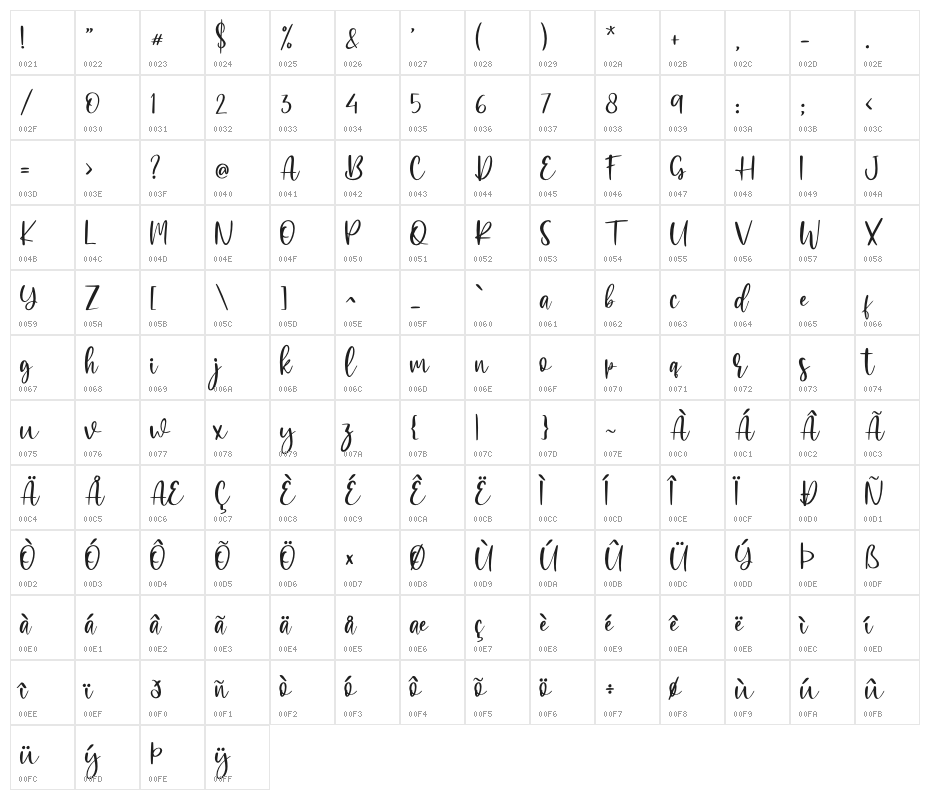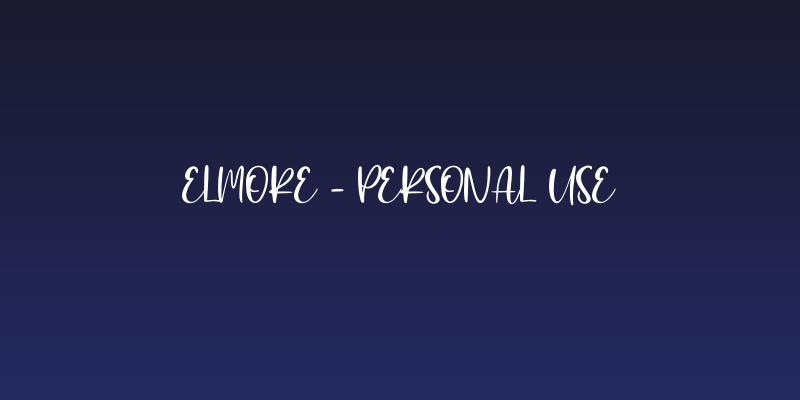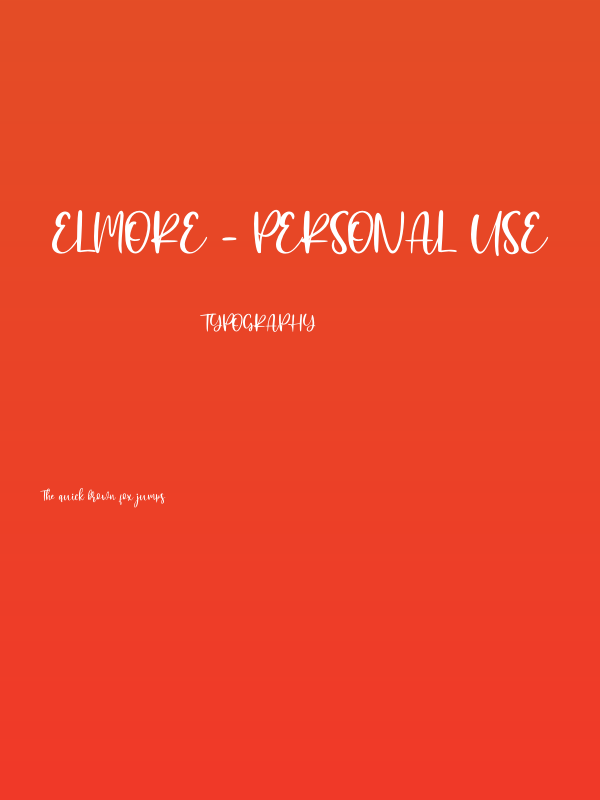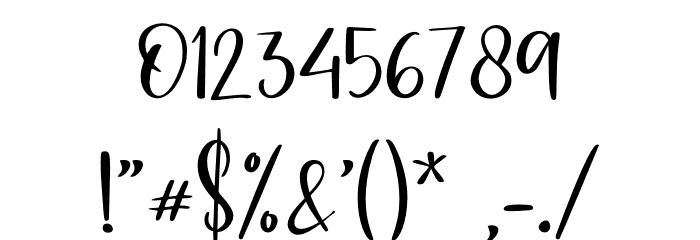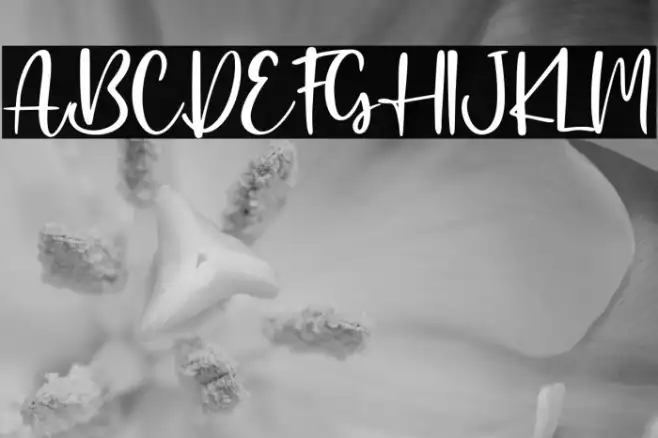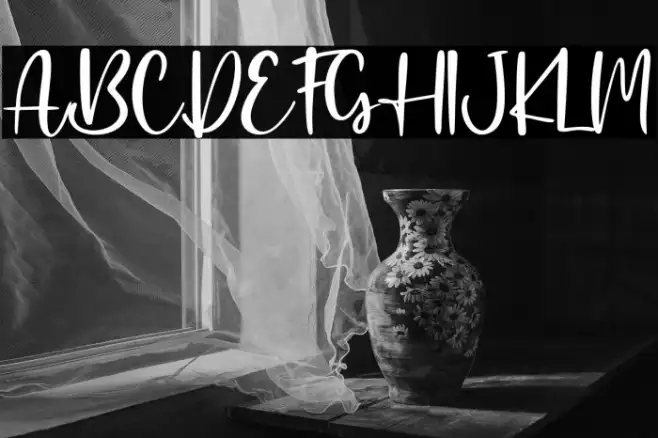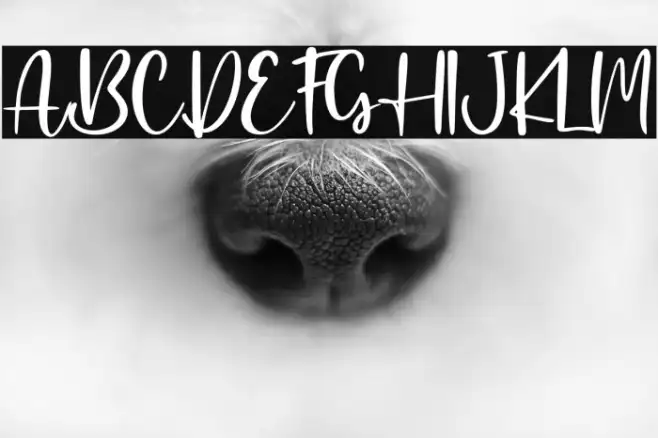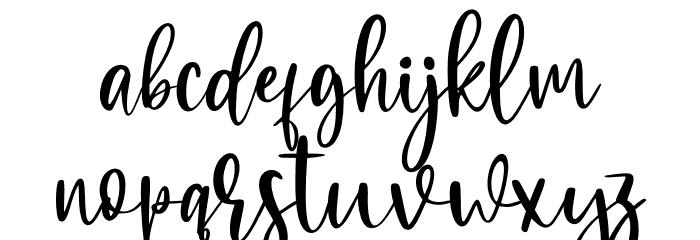
Elmore - Personal Use Font
Elmore - Personal Use Description
This font features a lively and expressive handwritten style, characterized by its fluid and dynamic strokes. The uppercase letters are bold and slightly slanted, giving a sense of movement and energy. The lowercase letters maintain a consistent flow, with some letters connecting seamlessly, enhancing the script-like appearance. The numerals are clear and legible, matching the playful yet elegant style of the alphabet. Special characters are creatively designed, maintaining the overall aesthetic of the font. This font's unique charm makes it suitable for projects that require a personal and artistic touch.